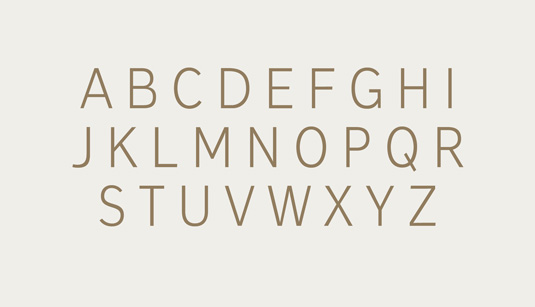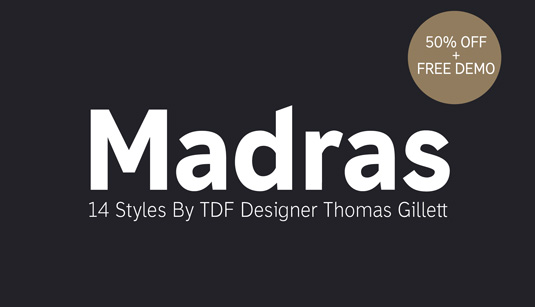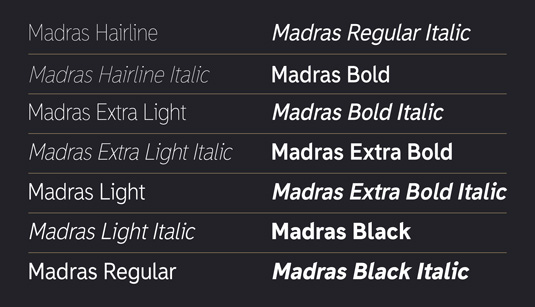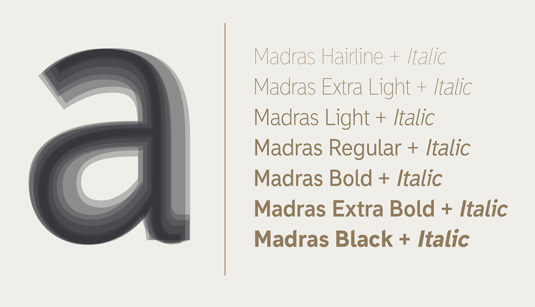
Font of the day: Madras
Madras by Thomas Gillett
A sans-serif type family consisting of seven weights, Madras was created by Australian designer Thomas Gillett. Available from Ten Dollar Fonts, the Madras is described as featuring the "simplicity of typefaces such as Helvetica and combined with modern defining features of typefaces such as Interstate to create a hybrid typeface that can be applied to any situation".